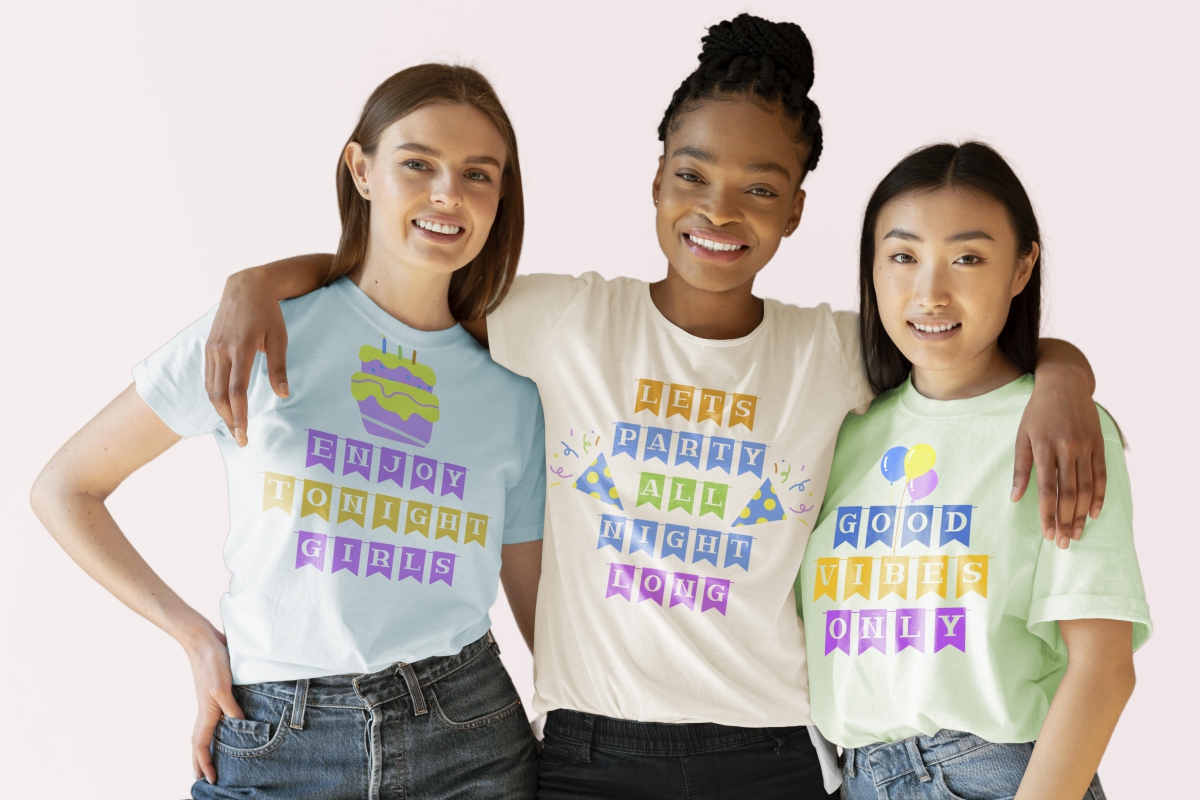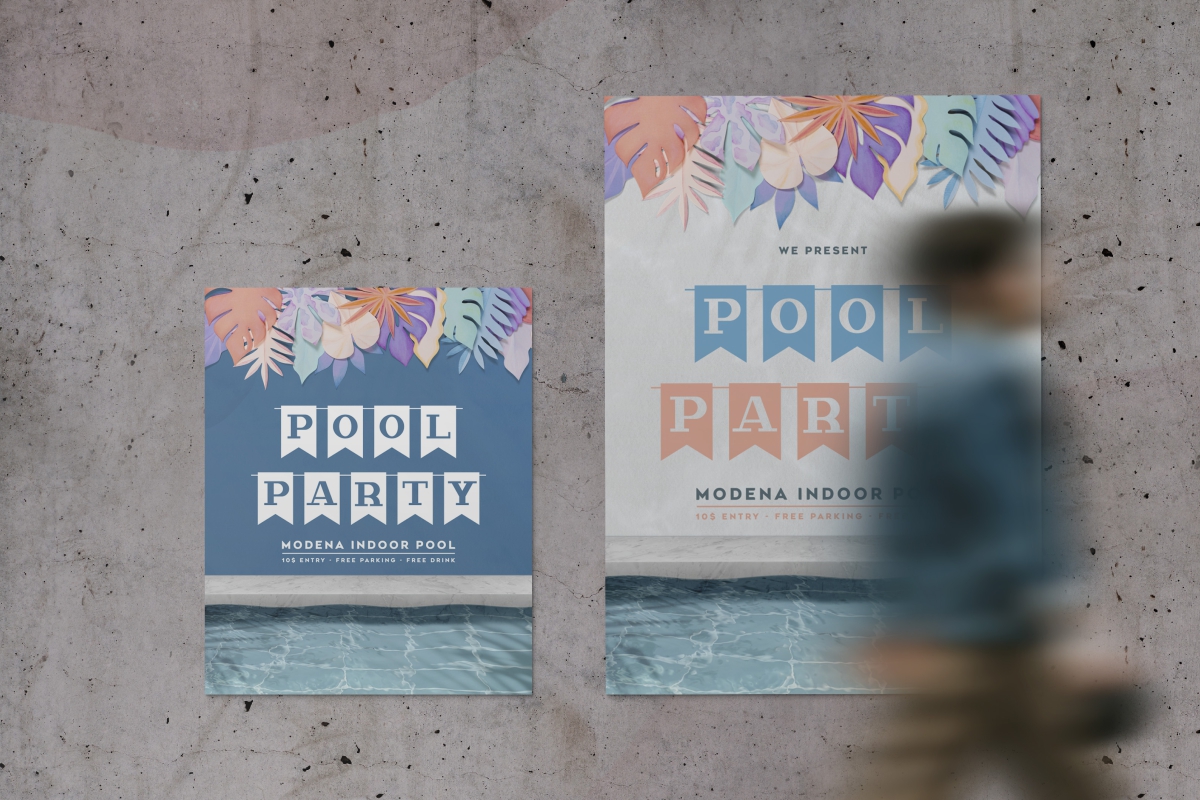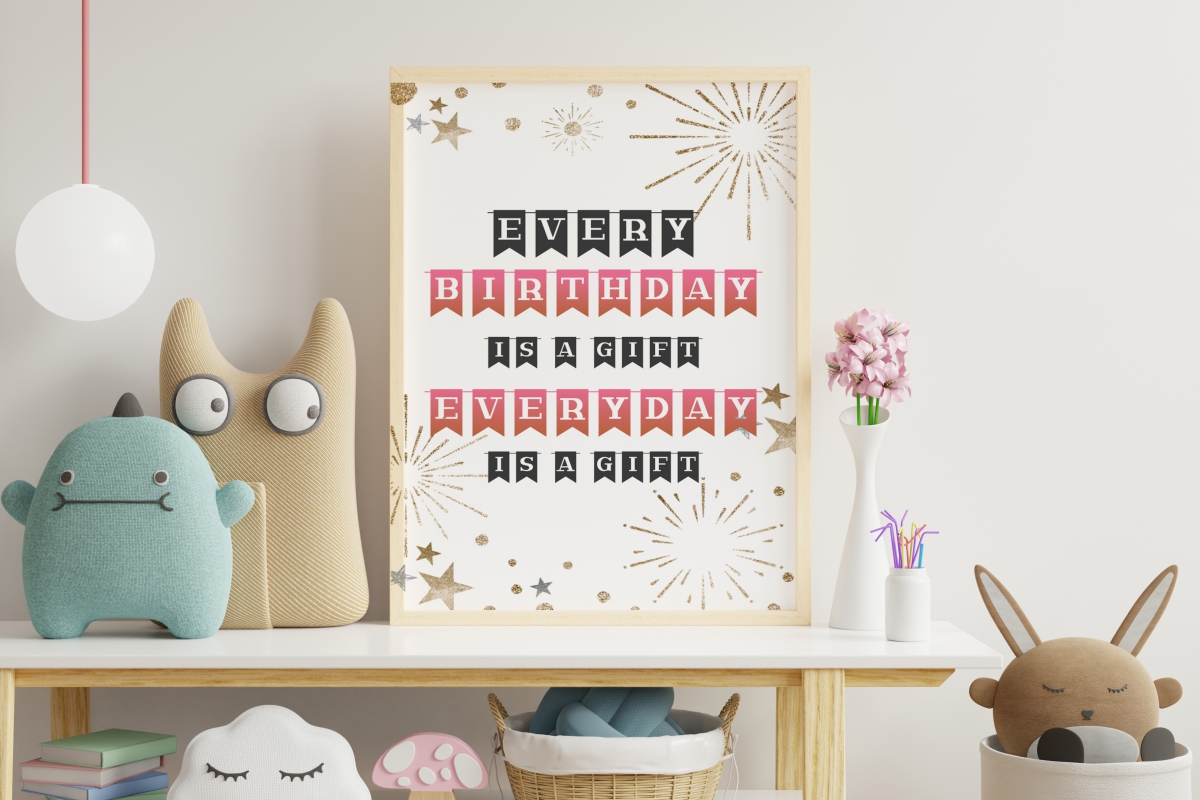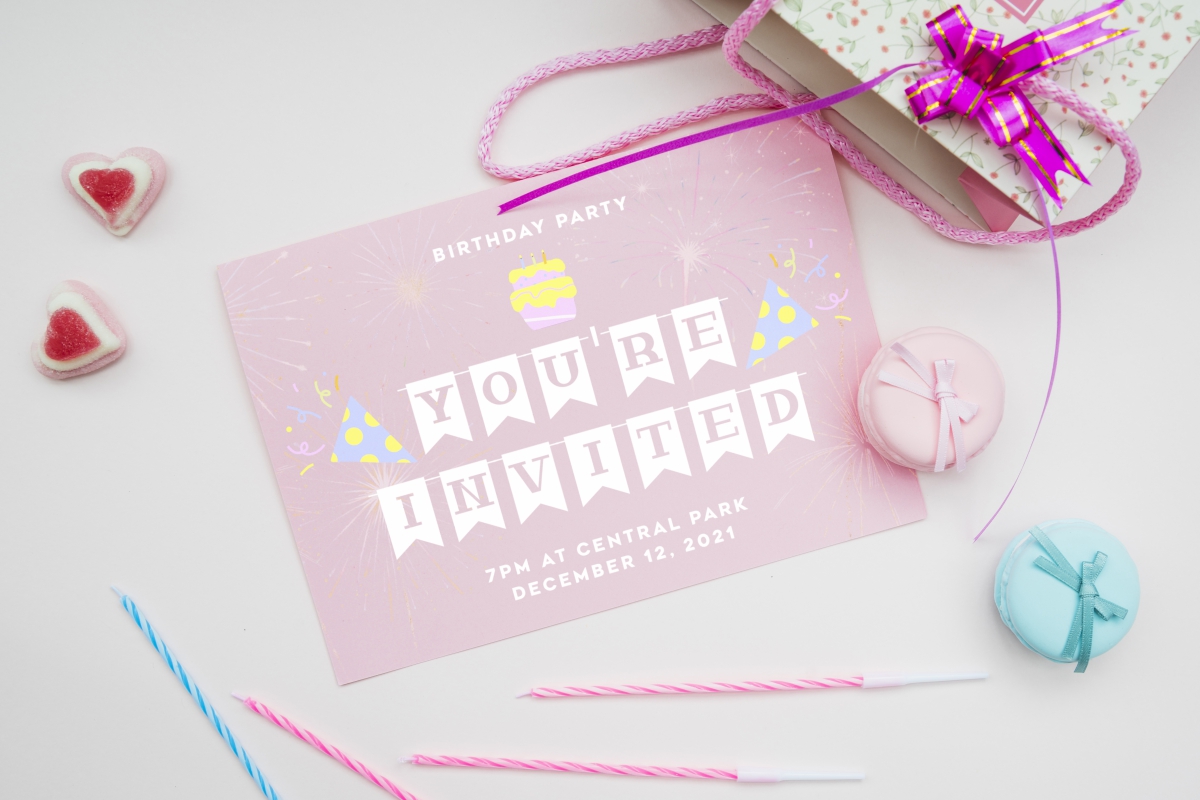
Party Day Font
Party Day Display Font
This is a decorative font inspired party theme style. The font will be awesome for gift, party, packaging, products etc. Party Day Font will suit many industries and categories related to anniversary, club/community, kids, family etc.